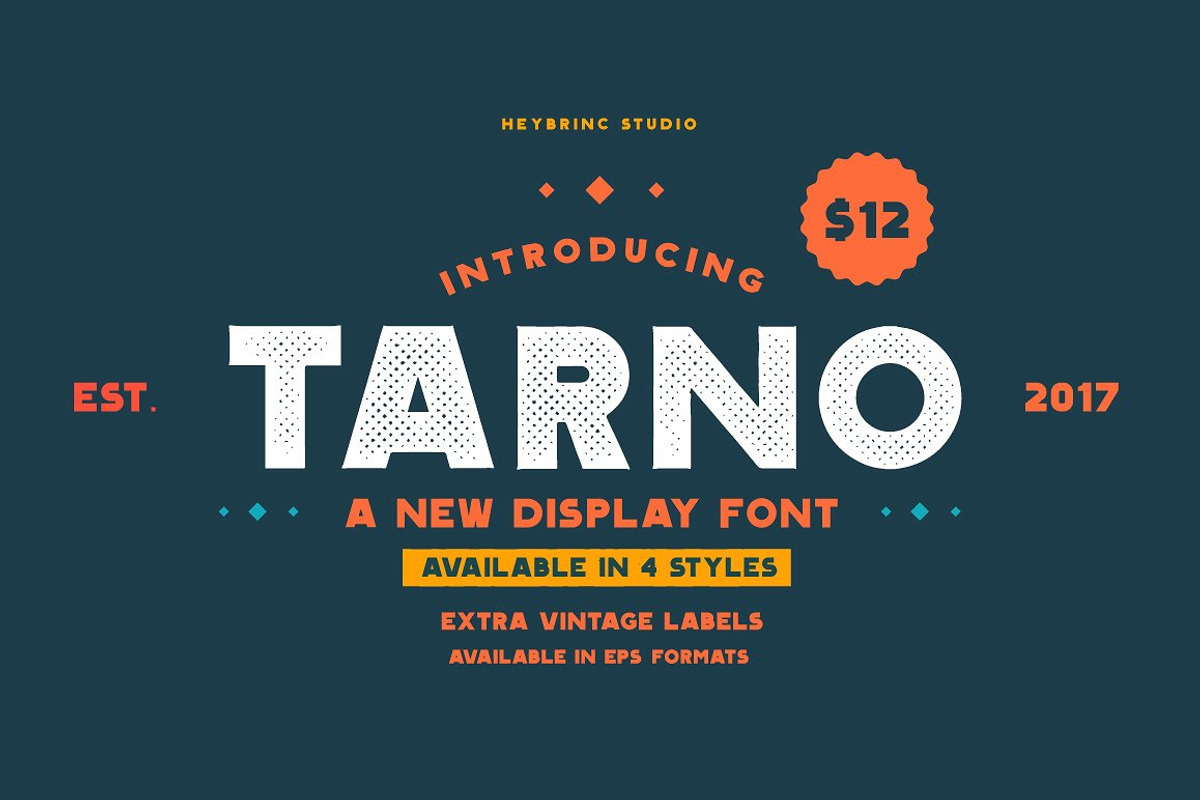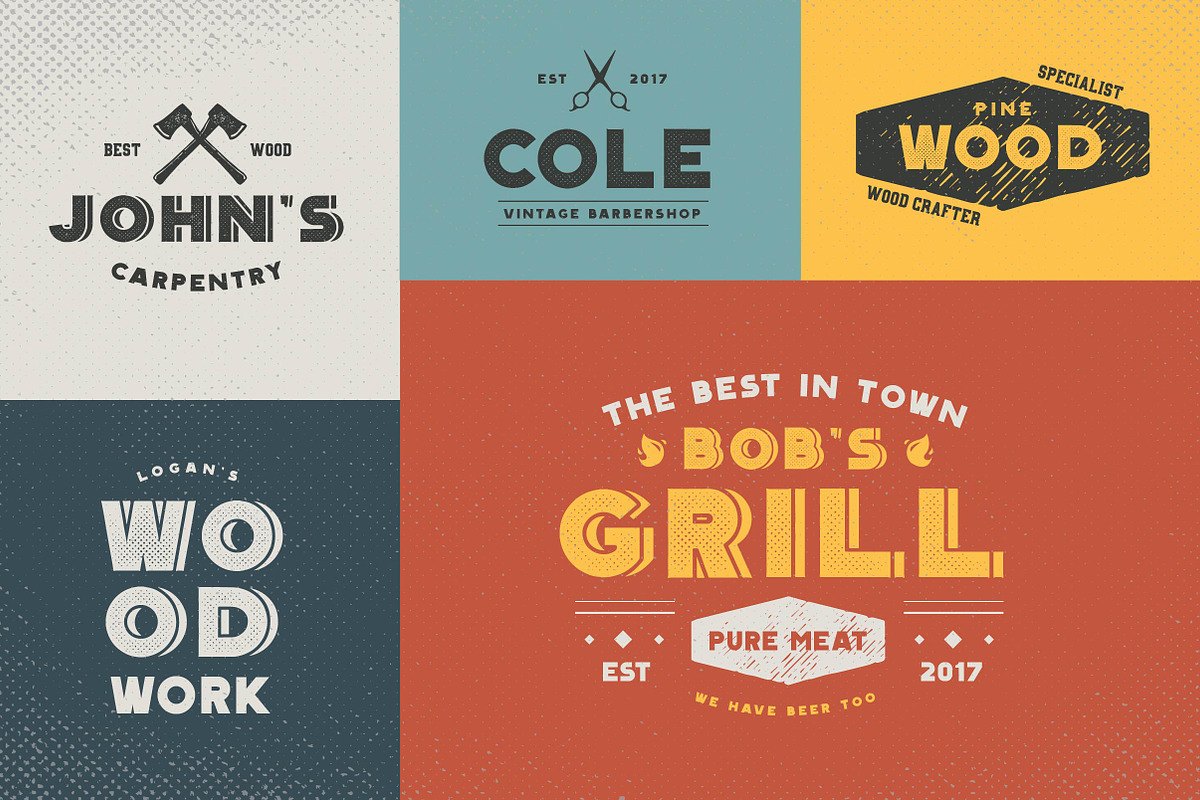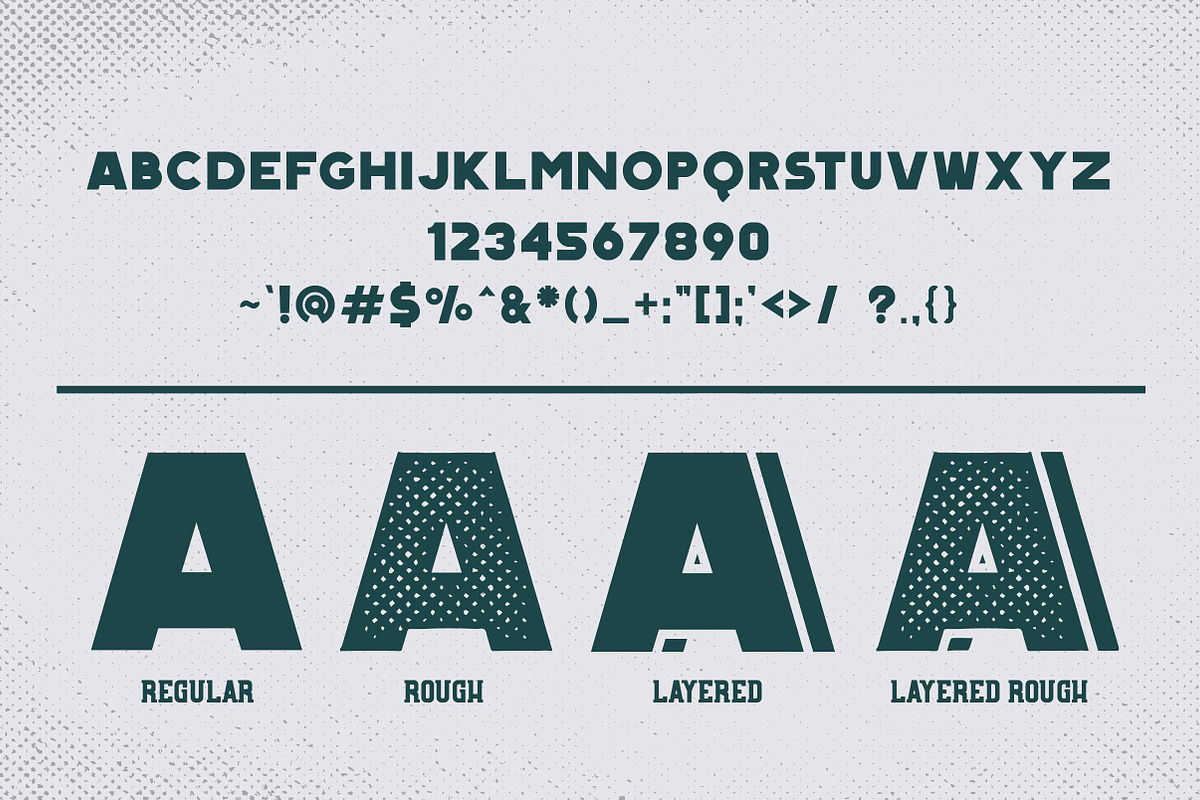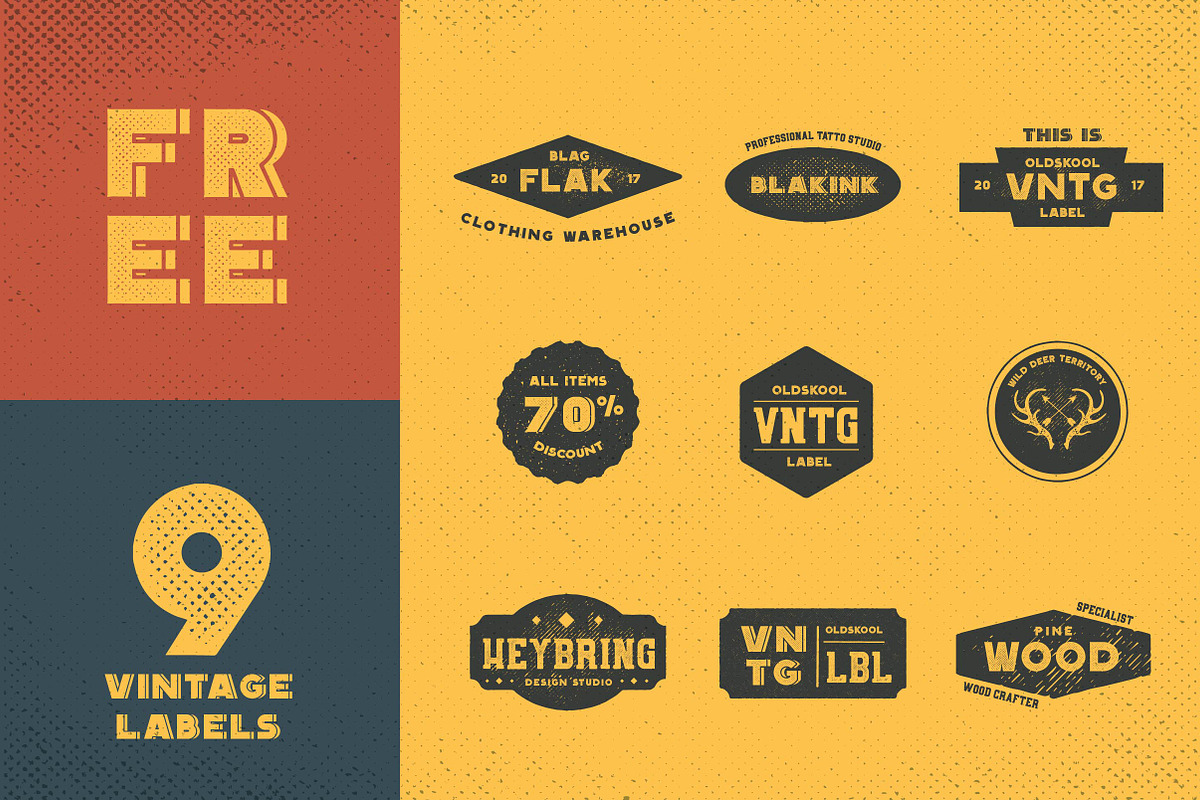
Tarno Display Font
Tarno is all caps display font. It's perfect for creating outstanding headline text to your design. Available in four types. What is include in the Package?
Why Tarno Display Font is worth a look
Tarno Display Font by Heybrinc Studio fits naturally into Branding, posters, packaging, typography.